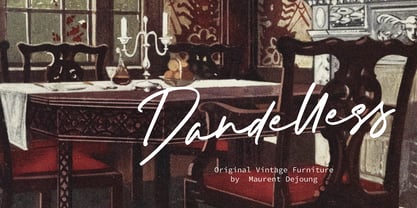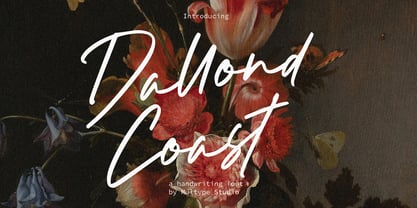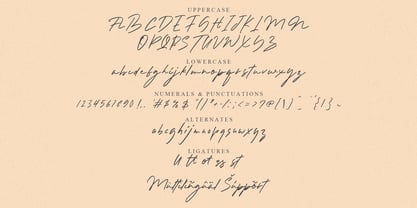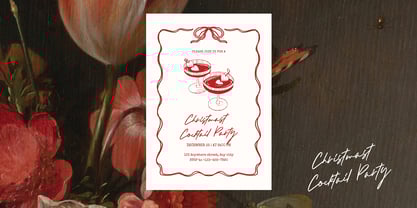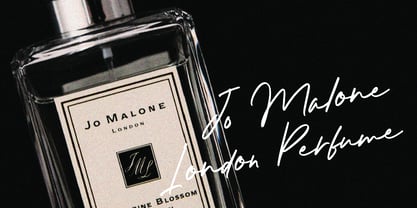
Dallond Coast
The Dallond Coast Font Family was designed by Mulia Yanto and published by Multype Studio. Dallond Coast contains 1 styles. More about this family
Dallond Coast is a modern handwritten script font that combines effortless elegance with a natural, flowing style. With its flowing lines and organic rhythm, Dallond Coast adds a stylish, high-end look to any project. Featuring smooth, organic strokes and bold brush textures, this font perfectly captures the charm of authentic handwriting. Its dynamic letterforms and stylish curves make it ideal for branding, wedding invitations, logos, posters, social media graphics, and any design that calls for a personal and sophisticated touch. Dallond Coast brings a balance of casual flair and refined artistry — perfect for creatives seeking a handwritten font that feels both modern and timeless. Features : - Uppercase, Lowercase, Symbol, Number, - Alternates, Ligature - And also support multi language. - Works on PC & Mac - Simple installations - Accessible in the Adobe Illustrator, Adobe Photoshop, Adobe InDesign, even work on Microsoft Word. - PUA Encoded Characters - Fully accessible without additional design software. Hope you enjoy with our font!